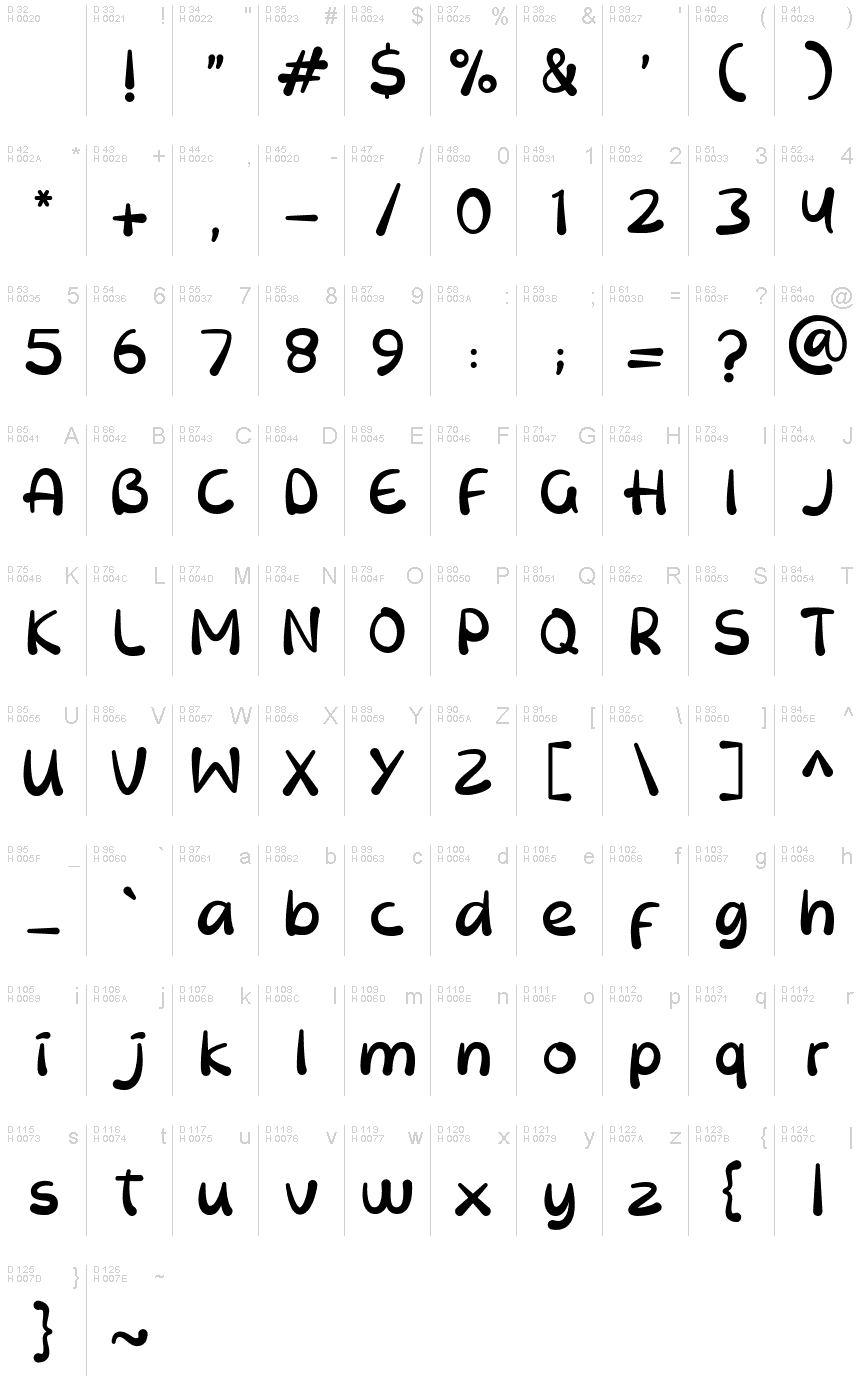
Mighty Kingdom
Mighty Kingdom is a bold and expressive handwritten font from Alpaprana Studio that will make your projects stand out. Its smooth marker style adds a touch of personality to any design, making it perfect for branding, advertising, and packaging. Whether you're creating logos, posters, or social media graphics, Mighty Kingdom is versatile enough to suit a wide range of projects. With its bold weight and striking appearance, this font is ideal for headlines and titles that demand attention. Give your designs the royal treatment with Mighty Kingdom!